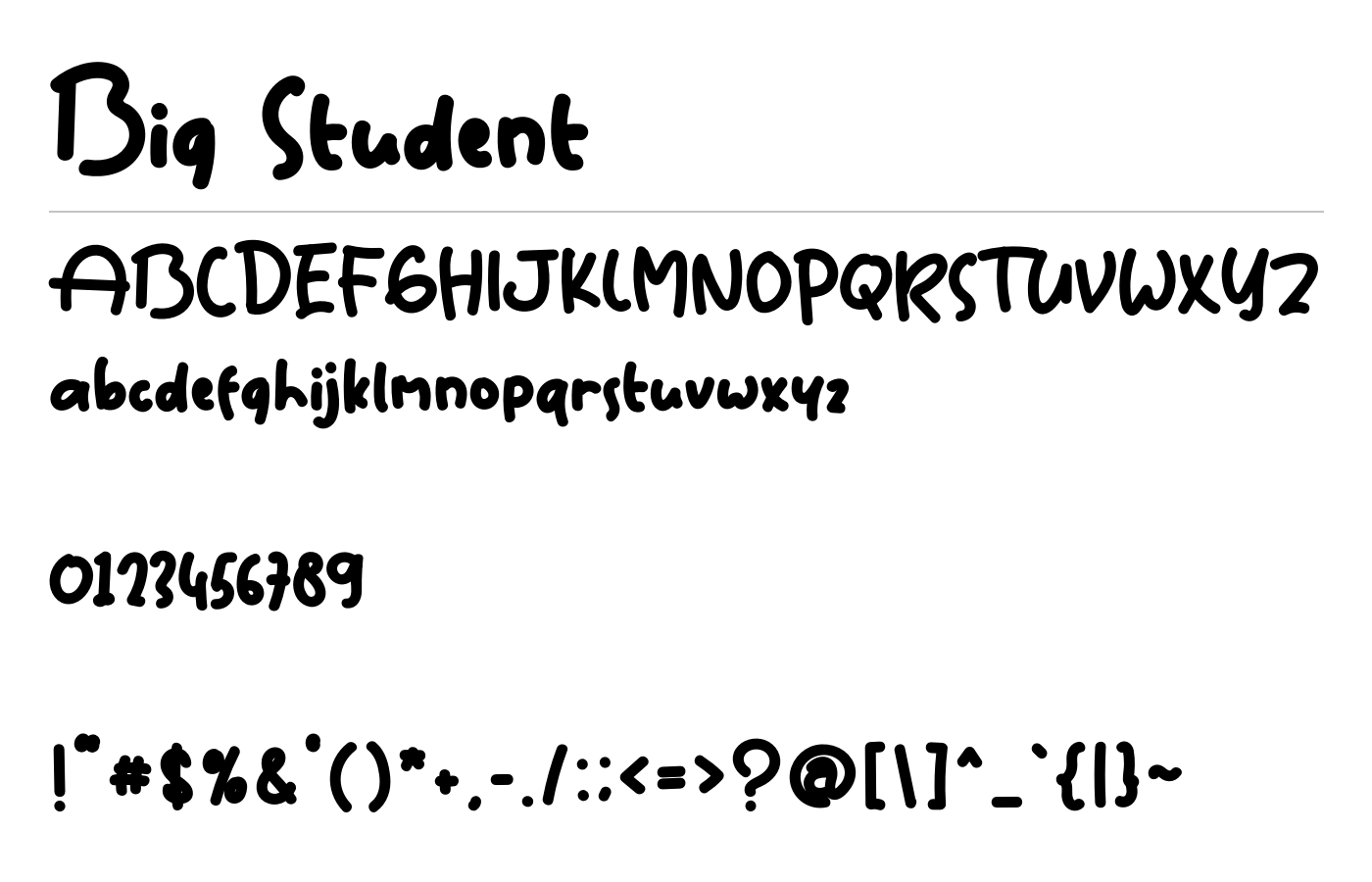
Big Student is a playful, casual handwritten font featuring thick, rounded strokes with a warm, friendly feel. Its bold weight and slightly condensed letterforms create an approachable style perfect for informal designs, kids’ materials, or creative branding that wants to convey personality and fun. This font works well in headlines, posters, and packaging where a lively, hand-drawn touch is desired.
Big Student Font